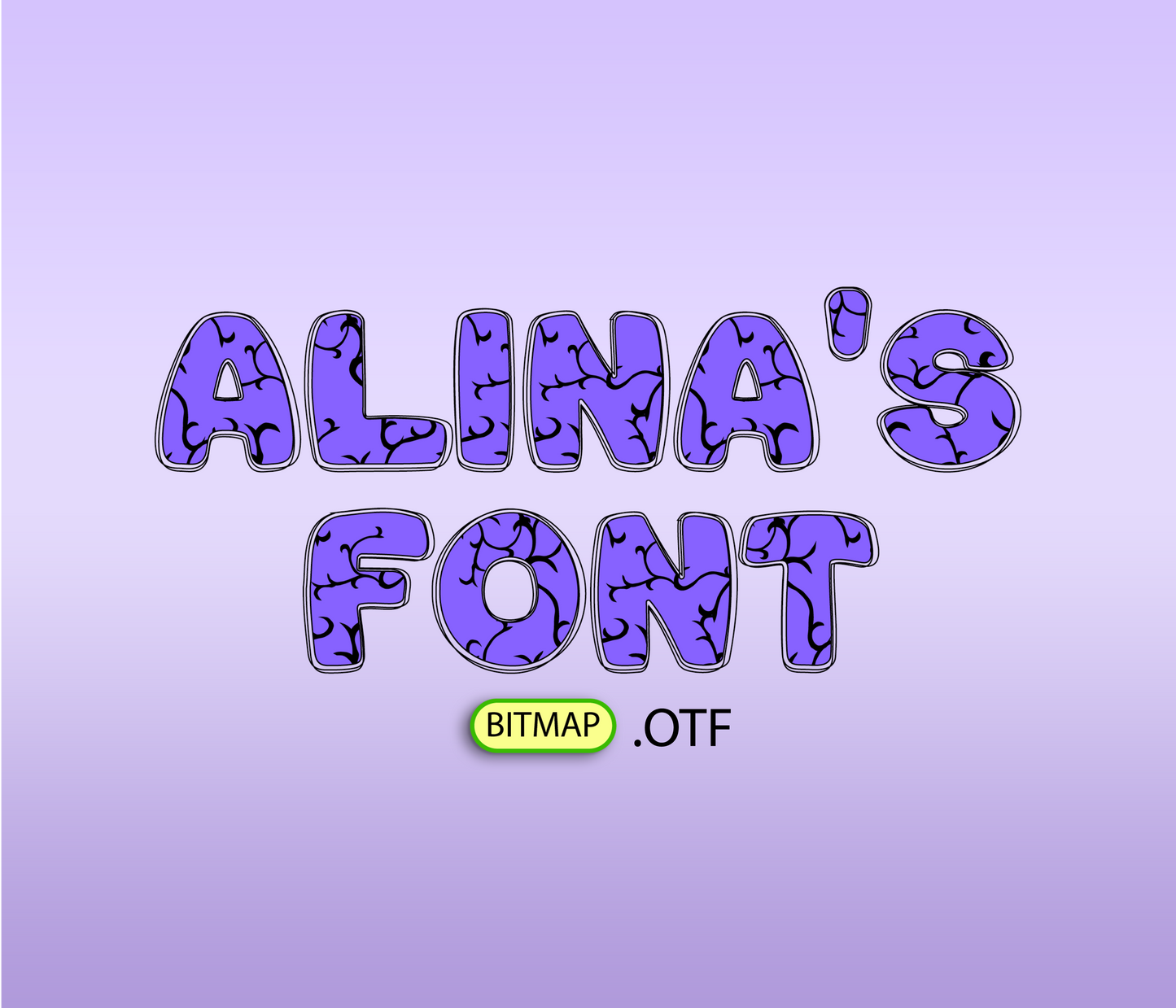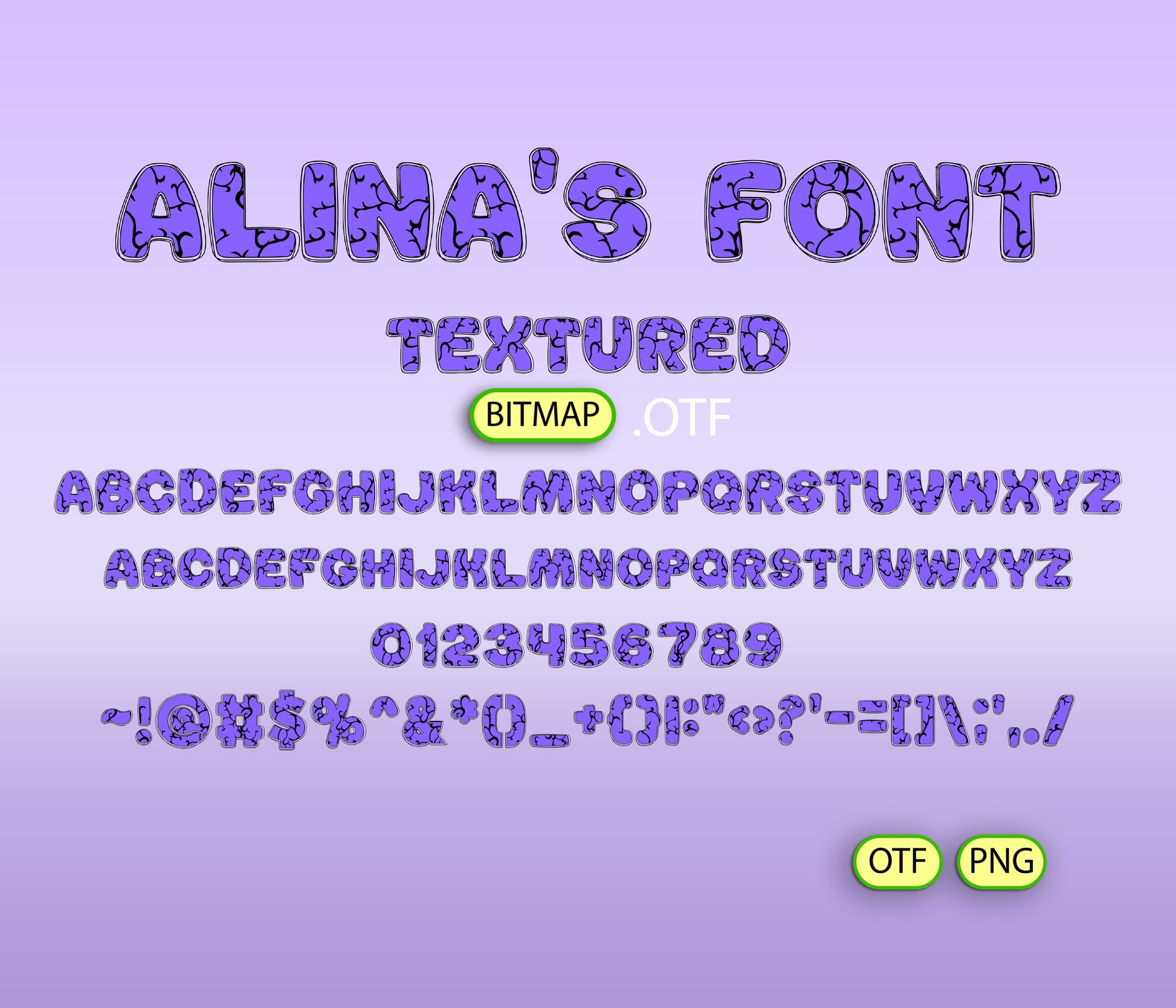
Dusk Prodigy Pattern Font
Dusk Prodigy Font Textured Twilight Sage Style
Step into the enigmatic world of shadowed brilliance and nocturnal wisdom with our Dusk Prodigy font, capturing the essence of twilight intellect and umbral sophistication. Perfect for mysterious events, twilight academia enthusiasts, shadow content creators, and creative professionals, this font brings the contemplative, cerebral spirit of dusk-dwelling adventures to your projects. Create mysterious invitations, shadow-themed merchandise, or digital content with the introspective, brilliant energy of dusk prodigy tales.
Our Dusk Prodigy font features precise, shadowed strokes and twilight characters reflecting the intellectually dark yet sophisticated aesthetic of nocturnal study scenarios. Ideal for:
- Twilight Events: Create attention-grabbing invites, posters, and banners for shadow parties, nocturnal-themed experiences, and contemplative gatherings
- Shadow Design: Perfect for book covers, twilight promotions, and dusk-themed party accessories that capture dusk prodigy mystique
- Digital Media: Enhance websites, blogs, and social media with shadowed headers and graphics that express contemplation and nocturnal spirit
- Entertainment Content: Add authentic character to shadow materials, twilight designs, and promotional materials for mysterious events
- Personal Projects: Bring nocturnal charm to scrapbooking, DIY crafts, and home decor inspired by the aesthetics of dusk prodigies